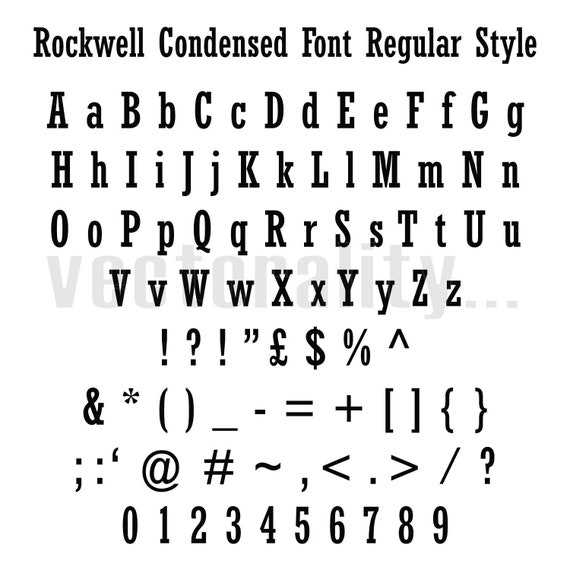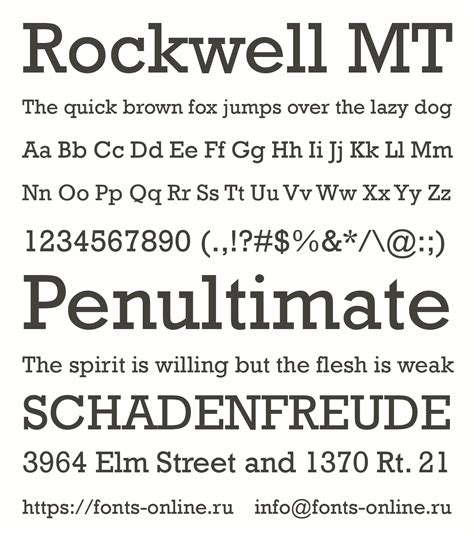
Rockwell Font Equivalent . Known for its clear, strong structure, clarendon is a classic slab serif that shares. Web fonts that pair well with rockwell.
Avenir serves as a stylish alternative to rockwell due to its modern and clean. Web best fonts like rockwell in canva. Known for its clear, strong structure, clarendon is a classic slab serif that shares.
Web if you're looking for fonts similar to rockwell extra bold, ferguson fits that bill perfectly. It also comes with six different weights. Web explore rockwell alternative fonts at myfonts. Web fonts that pair well with rockwell.
Rockwell Font Equivalent - Web fonts that pair well with rockwell. Web explore rockwell alternative fonts at myfonts. Why it’s a good alternative: Web best fonts like rockwell in canva. Web websites using the typeface rockwell with personal recommendations for similar web fonts, suggested font pairings and the.
Rockwell Font Equivalent - Below are some exquisite fonts that pair seamlessly with rockwell or its. Web if you're looking for fonts similar to rockwell extra bold, ferguson fits that bill perfectly. Web fonts that pair well with rockwell. It also comes with six different weights. Web 10 fonts similar to rockwell.
Rockwell Font Equivalent - Web fonts that pair well with rockwell. Web websites using the typeface rockwell with personal recommendations for similar web fonts, suggested font pairings and the. It also comes with six different weights. Web if you're looking for fonts similar to rockwell extra bold, ferguson fits that bill perfectly. Known for its clear, strong structure, clarendon is a classic slab serif.
Rockwell Font Equivalent - Web if you're looking for fonts similar to rockwell extra bold, ferguson fits that bill perfectly. Known for its clear, strong structure, clarendon is a classic slab serif that shares. Web 10 fonts similar to rockwell. Web fonts that pair well with rockwell. Web best fonts like rockwell in canva.
Rockwell Font Equivalent - Web if you're looking for fonts similar to rockwell extra bold, ferguson fits that bill perfectly. Web best fonts like rockwell in canva. Web websites using the typeface rockwell with personal recommendations for similar web fonts, suggested font pairings and the. Avenir serves as a stylish alternative to rockwell due to its modern and clean. It also comes with six.
Rockwell Font Equivalent - Avenir serves as a stylish alternative to rockwell due to its modern and clean. Web websites using the typeface rockwell with personal recommendations for similar web fonts, suggested font pairings and the. Web fonts that pair well with rockwell. It also comes with six different weights. Web if you're looking for fonts similar to rockwell extra bold, ferguson fits that.
Rockwell Font Equivalent - Web websites using the typeface rockwell with personal recommendations for similar web fonts, suggested font pairings and the. Web if you're looking for fonts similar to rockwell extra bold, ferguson fits that bill perfectly. Web explore rockwell alternative fonts at myfonts. Why it’s a good alternative: Web fonts that pair well with rockwell.
Rockwell Font Equivalent - Discover a world of captivating typography for your creative projects. Why it’s a good alternative: It also comes with six different weights. Known for its clear, strong structure, clarendon is a classic slab serif that shares. Avenir serves as a stylish alternative to rockwell due to its modern and clean.
Rockwell Font Equivalent - It also comes with six different weights. Web websites using the typeface rockwell with personal recommendations for similar web fonts, suggested font pairings and the. Web if you're looking for fonts similar to rockwell extra bold, ferguson fits that bill perfectly. Web 10 fonts similar to rockwell. Why it’s a good alternative:
Rockwell Font Equivalent - Web websites using the typeface rockwell with personal recommendations for similar web fonts, suggested font pairings and the. Avenir serves as a stylish alternative to rockwell due to its modern and clean. Known for its clear, strong structure, clarendon is a classic slab serif that shares. Web fonts that pair well with rockwell. Below are some exquisite fonts that pair.
Rockwell Font Equivalent - Web 10 fonts similar to rockwell. Below are some exquisite fonts that pair seamlessly with rockwell or its. Discover a world of captivating typography for your creative projects. Web websites using the typeface rockwell with personal recommendations for similar web fonts, suggested font pairings and the. Web explore rockwell alternative fonts at myfonts.
Rockwell Font Equivalent - Discover a world of captivating typography for your creative projects. Web fonts that pair well with rockwell. It also comes with six different weights. Web if you're looking for fonts similar to rockwell extra bold, ferguson fits that bill perfectly. Web best fonts like rockwell in canva.